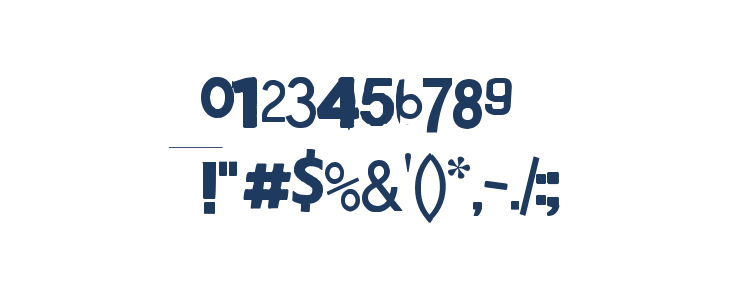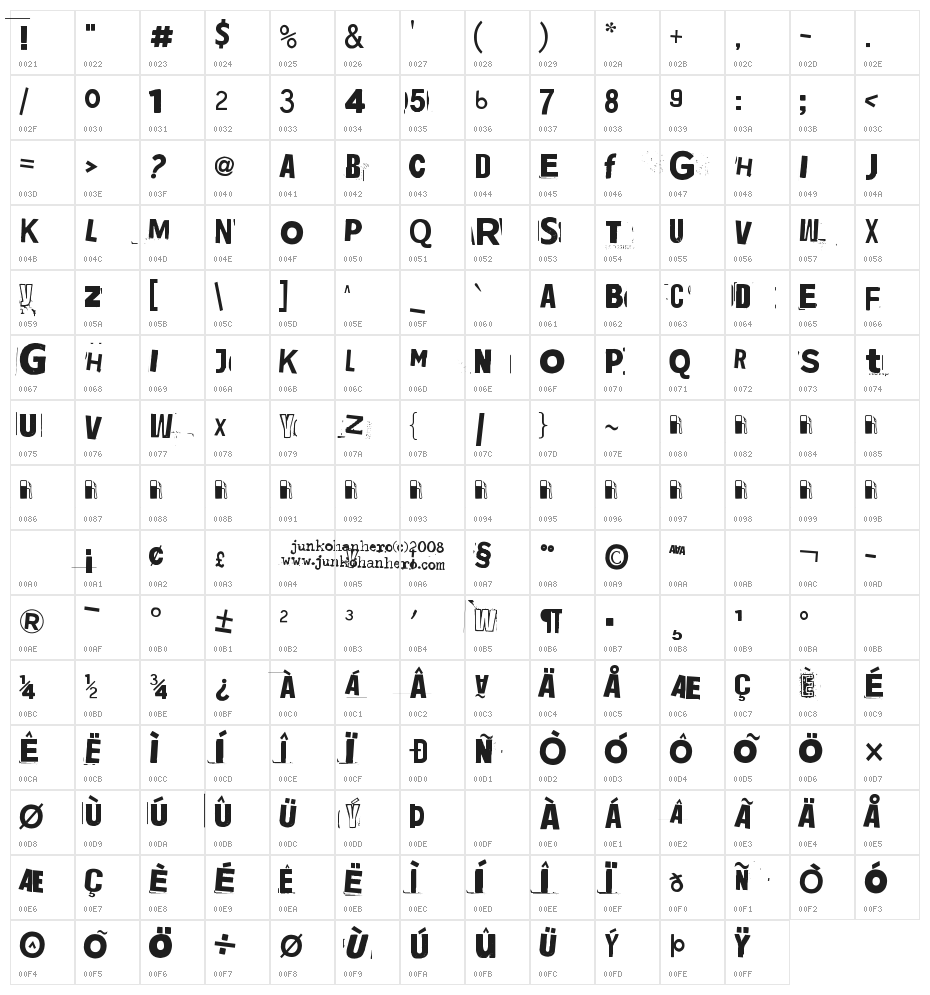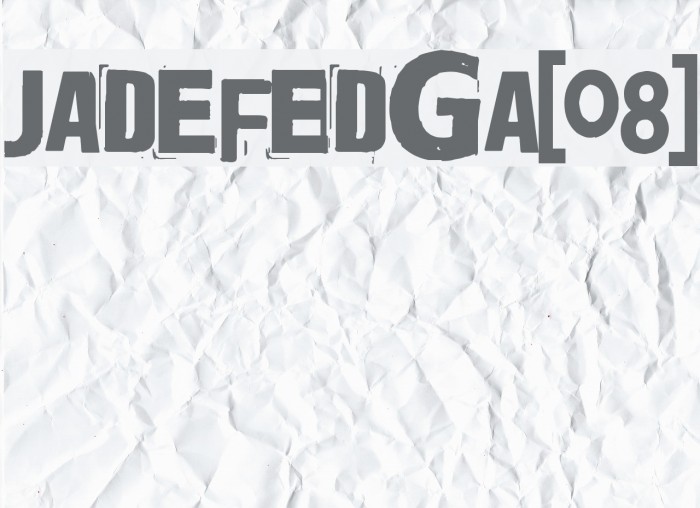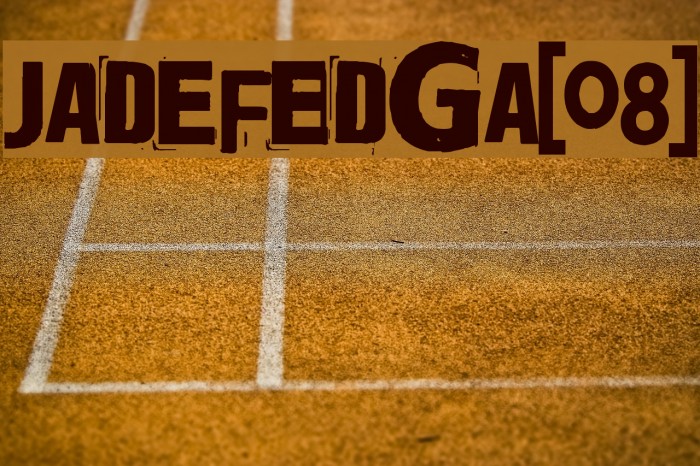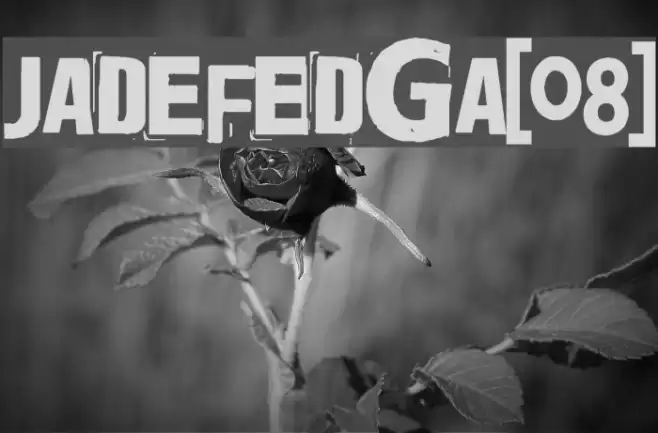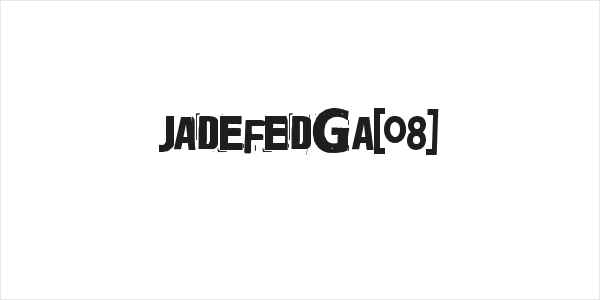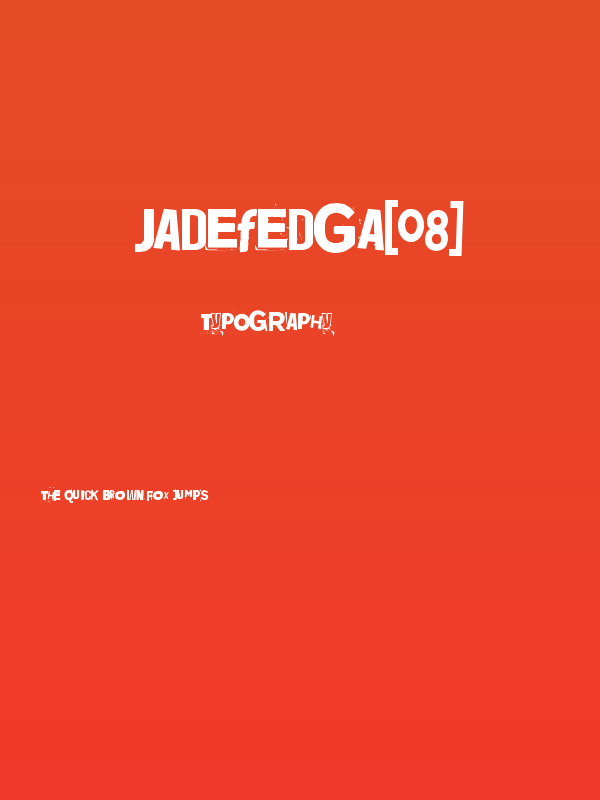
Jadefedga[08] Font
Jadefedga[08] Description
This font features a bold and eclectic style with a distressed, grunge appearance. The characters are unevenly weighted, giving a sense of dynamic movement and energy. The uppercase letters are bold and impactful, while the lowercase letters maintain the same distressed aesthetic. Numbers and special characters follow the same design, ensuring consistency across all glyphs. The font's rough edges and irregular shapes contribute to its unique, eye-catching look, making it ideal for projects that require a bold statement.
Overall StyleGrunge, Urban, Edgy
Use CaseHeadlines, Posters, Album Covers
Proposed ProjectsIdeal for album covers, posters, urban-themed designs, and any project needing a bold, edgy look.